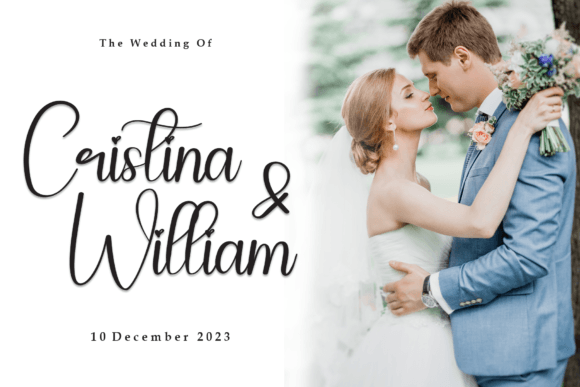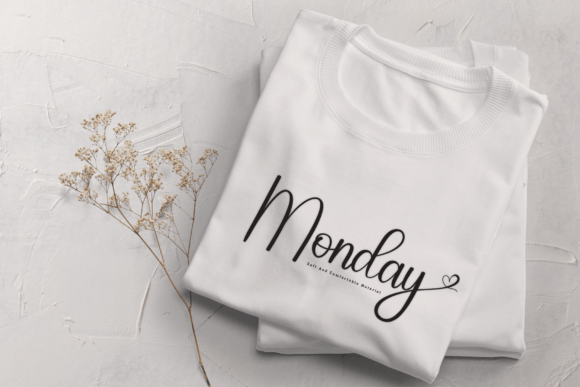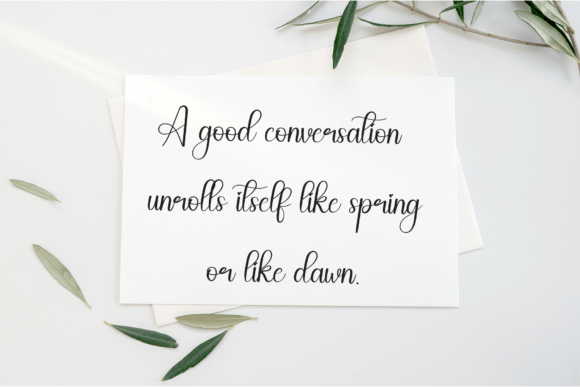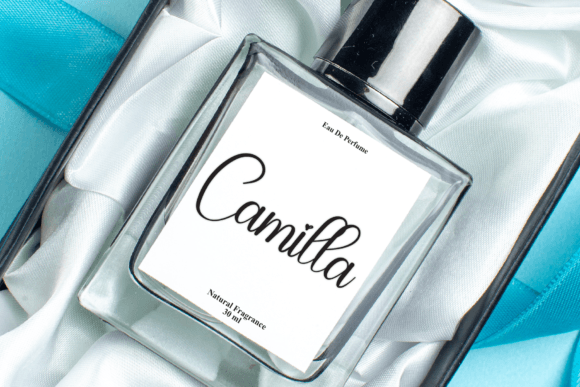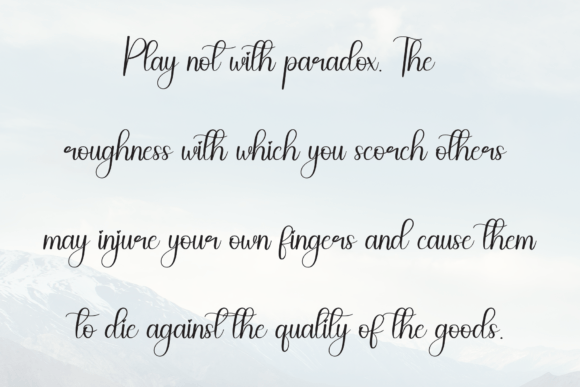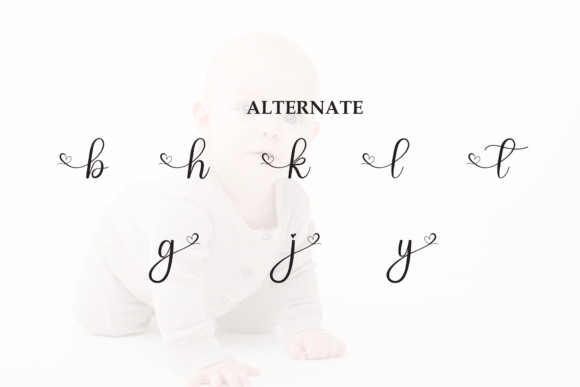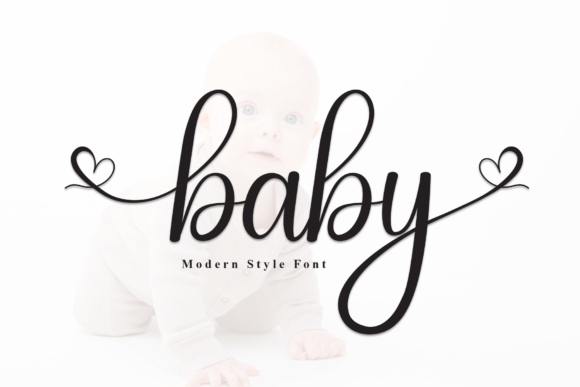
Baby Font: The Sweet and Friendly Handwritten Display Font
Are you looking for a font that can add a touch of sweetness and friendliness to your designs? Look no further than Baby Font, a beautiful handwritten display font that’s perfect for creating fun and playful designs. In this article, we’ll take a closer look at Baby Font, its features, and how you can use it to elevate your designs.
What is Baby Font?
Baby Font is a sweet and friendly handwritten display font that’s designed to bring a touch of cuteness and fun to your designs. With its playful and approachable style, this font is ideal for writing wedding invitations, cards, or any other design that might need a fun touch. Whether you’re a designer, crafter, or DIY enthusiast, Baby Font is a great addition to your font collection.
Features of Baby Font
Baby Font comes with a range of features that make it a versatile and easy-to-use font. Some of its key features include:
- Handwritten style: Baby Font has a beautiful handwritten style that’s perfect for creating personal and unique designs.
- Cute and fun: This font is designed to be cute and fun, making it perfect for designs that need a playful touch.
- Display font: Baby Font is a display font, which means it’s designed to be used at larger sizes, making it perfect for headings, titles, and other display text.
- Easily readable: Despite its playful style, Baby Font is easily readable, even at smaller sizes.
Uses for Baby Font
Baby Font is a versatile font that can be used for a wide range of design projects. Here are some ideas to get you started:
- Wedding invitations: Baby Font is perfect for writing sweet and romantic wedding invitations that will set the tone for your special day.
- Cards and stationery: This font is great for creating fun and playful cards and stationery for birthdays, holidays, and other special occasions.
- DIY projects: Baby Font is a great font to use for DIY projects, such as scrapbooking, journaling, and other paper crafts.
- Digital designs: This font can also be used for digital designs, such as social media graphics, blog posts, and other online content.
Tips for Using Baby Font
Here are some tips for using Baby Font in your designs:
- Use it as a display font: Baby Font is designed to be used as a display font, so use it to create headings, titles, and other display text.
- Pair it with other fonts: Baby Font can be paired with other fonts to create a unique and interesting design. Try pairing it with a sans-serif font for a fun and playful look.
- Experiment with colors: Baby Font looks great in a range of colors, so don’t be afraid to experiment and find the perfect color for your design.
Baby Font is a sweet and friendly handwritten display font that’s perfect for adding a touch of fun and playfulness to your designs. With its cute and approachable style, this font is ideal for writing wedding invitations, cards, or any other design that might need a fun touch. Whether you’re a designer, crafter, or DIY enthusiast, Baby Font is a great addition to your font collection.